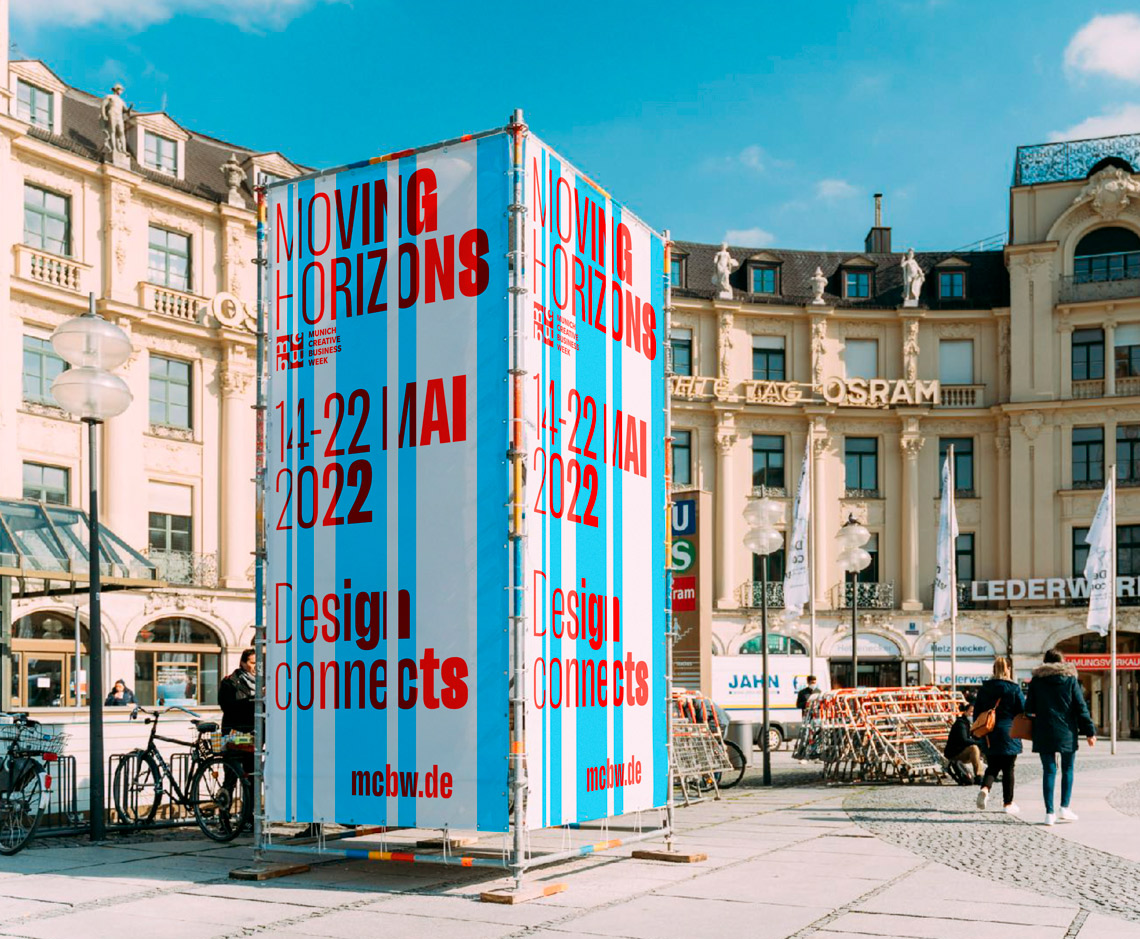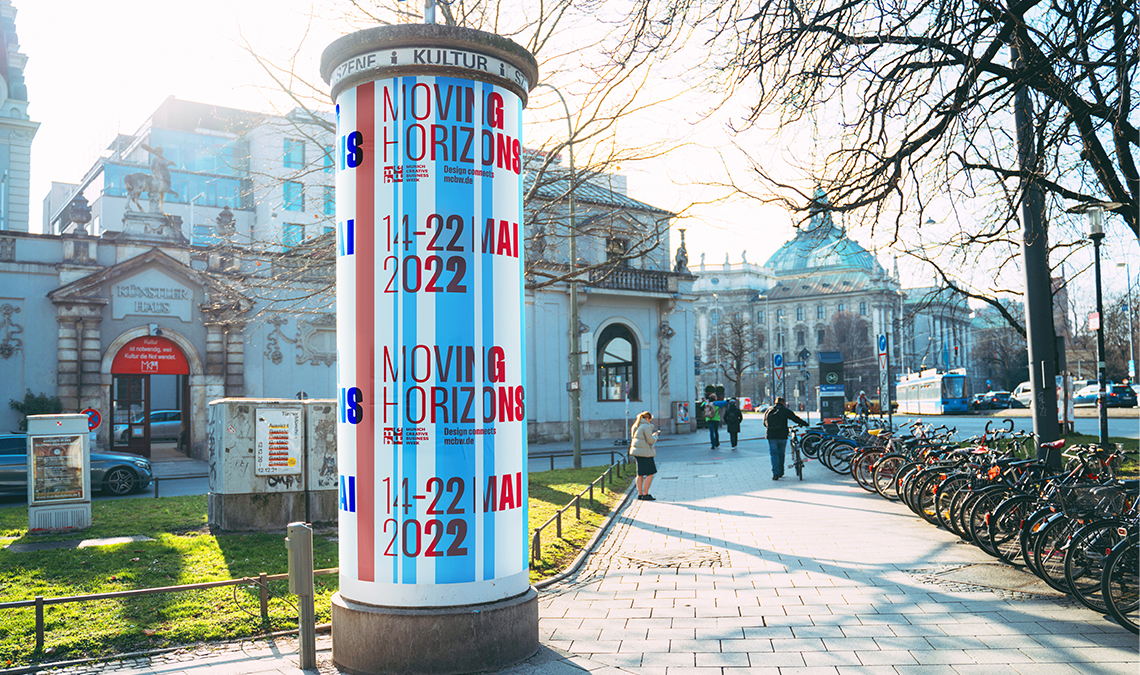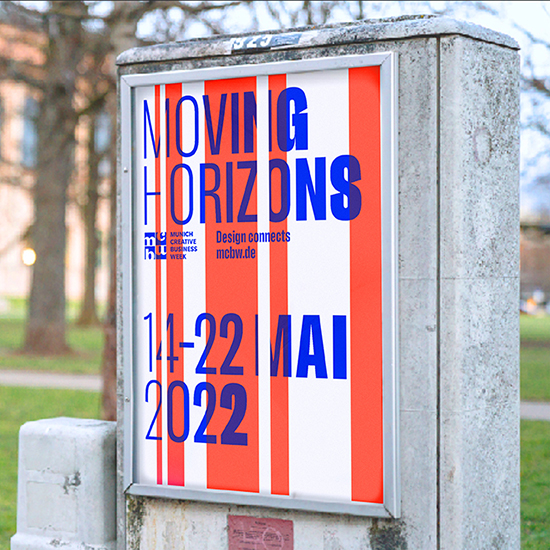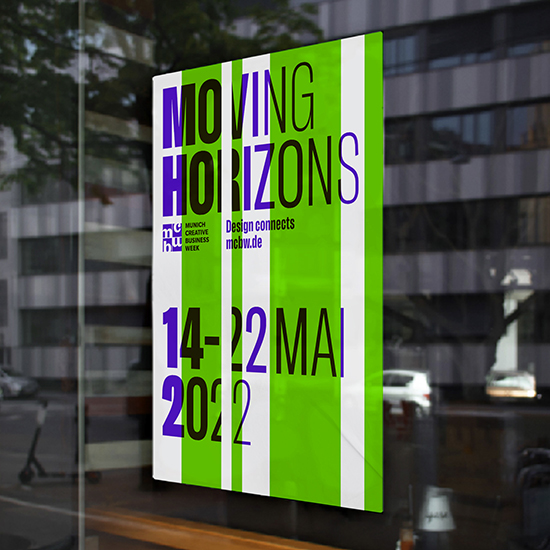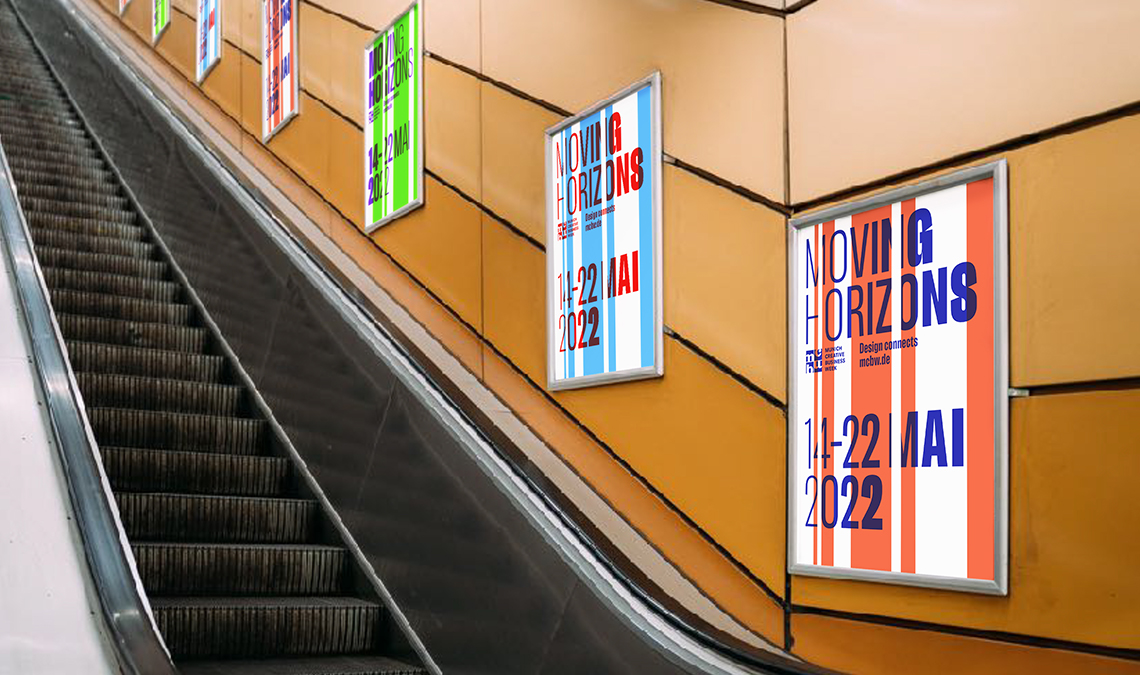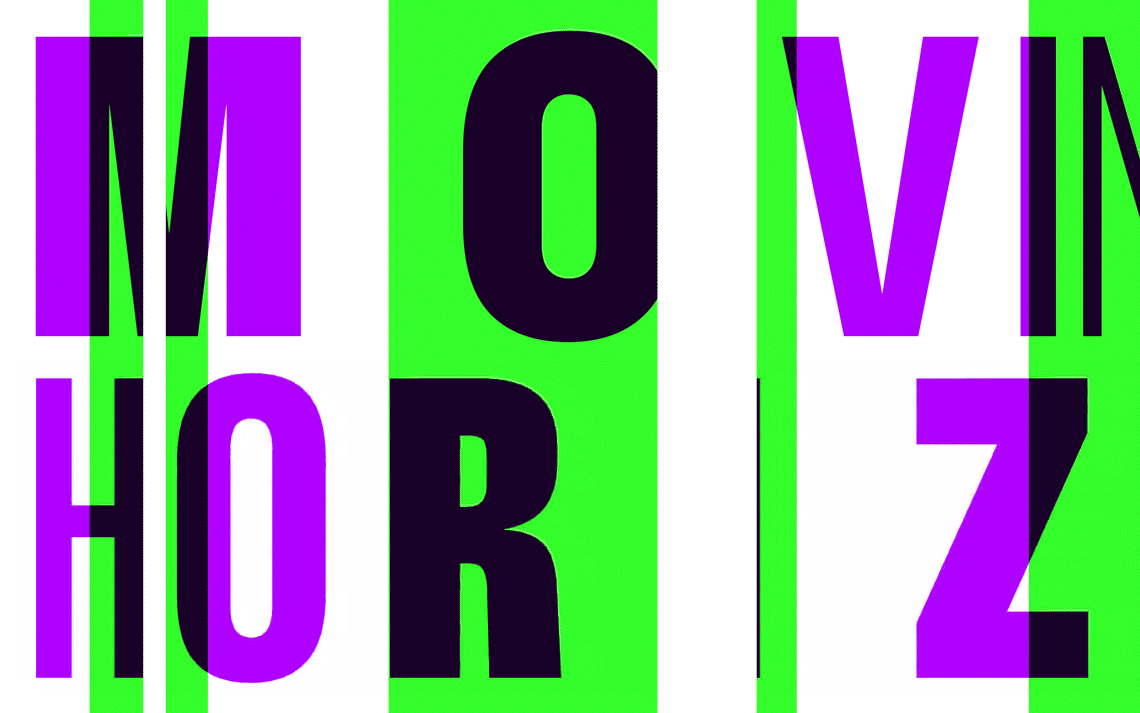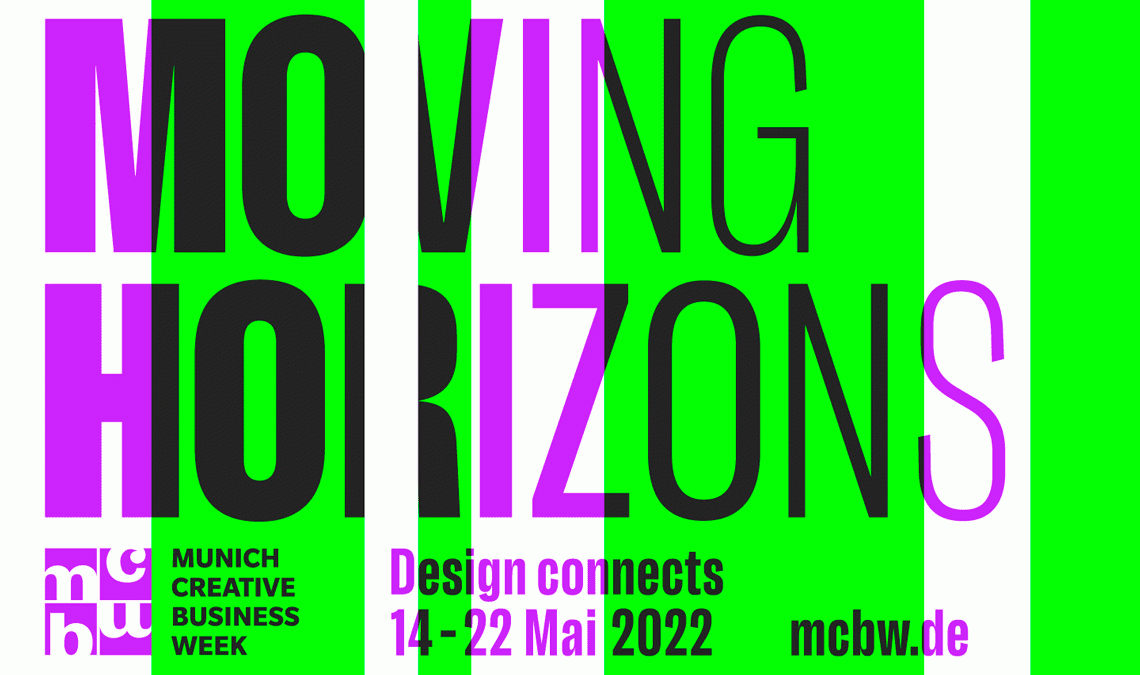
The Munich Creative Business Week (MCBW) is an important fixture in the German Design scene where hundreds of people gather to learn, exchange, and connect in a week of events, talks, and exhibitions. MCBW is organized by bayern design GmbH and is sponsored by the Bavarian State Ministry for Economic Affairs, Regional Development, and Energy, in cooperation with the City of Munich.
The focal theme Moving Horizons was selected to highlight MCBW 2022 as a platform for places of longing that set out to expand, challenge, and shift horizons through design and to discover and rediscover.
In partnership with Munich branding agency Kochan & Partner, Anette Lenz, renowned German graphic designer now living in Paris, has created the new key visuals. She selected Florian Fecher’s Lektorat as main the typographic element throughout. Her explorations with the variable font format brought about a dynamic and playful interpretation of the MCBW theme Moving Horizons that finds expression in animated form. Lenz explains, “The intention behind the new MCBW key visual was to envision transformation and emotion through graphic means and to portray a type of new beginning following the motto Back to Basics. This way, text can turn into picture and unite color, structure, and lines.”